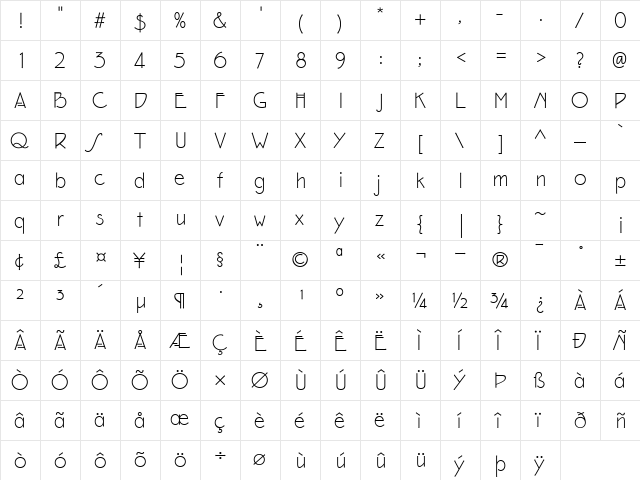
Eaglefeather Light
Design Context for Eaglefeather Typeface
Eaglefeather takes a measured approach to typography — its balanced proportions and neutral character make it a reliable workhorse for both digital and print work. Its slender proportions lend an understated elegance to any composition.
Pro Tip: Use Eaglefeather in both headline and body roles to test its range before committing to a single application.